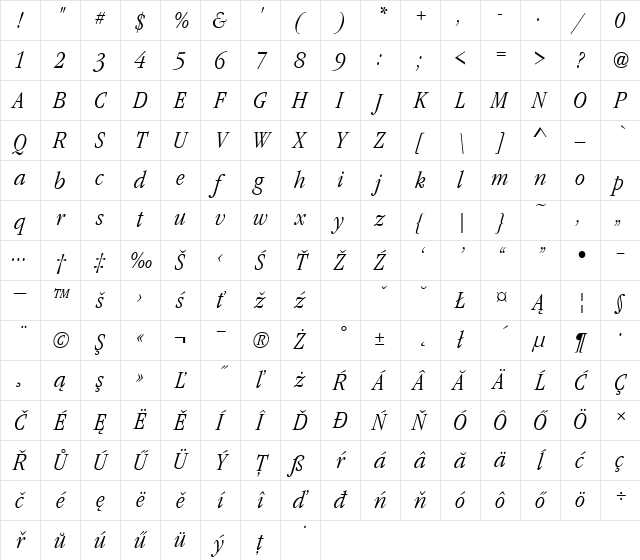
Complete GaramItcTEELigCon Italic Italic glyph index. Displaying only characters natively supported by GaramItcTEELigCon Italic Italic font.
GaramItcTEELigCon Italic is a composed and adaptable typeface that performs quietly and consistently across a wide range of design contexts. The slanted form adds forward momentum and visual energy.
Pro Tip: Use GaramItcTEELigCon Italic for emphasis, pull quotes, and subheadings where its slanted energy can add rhythm to the layout.